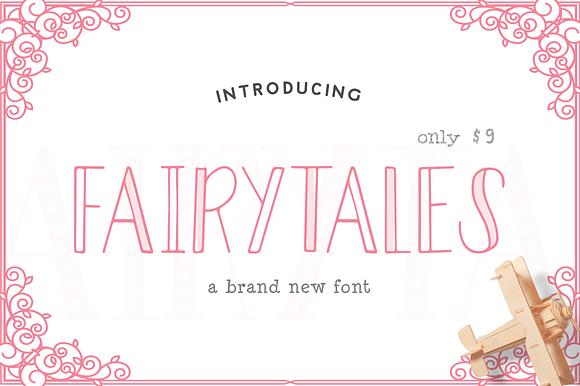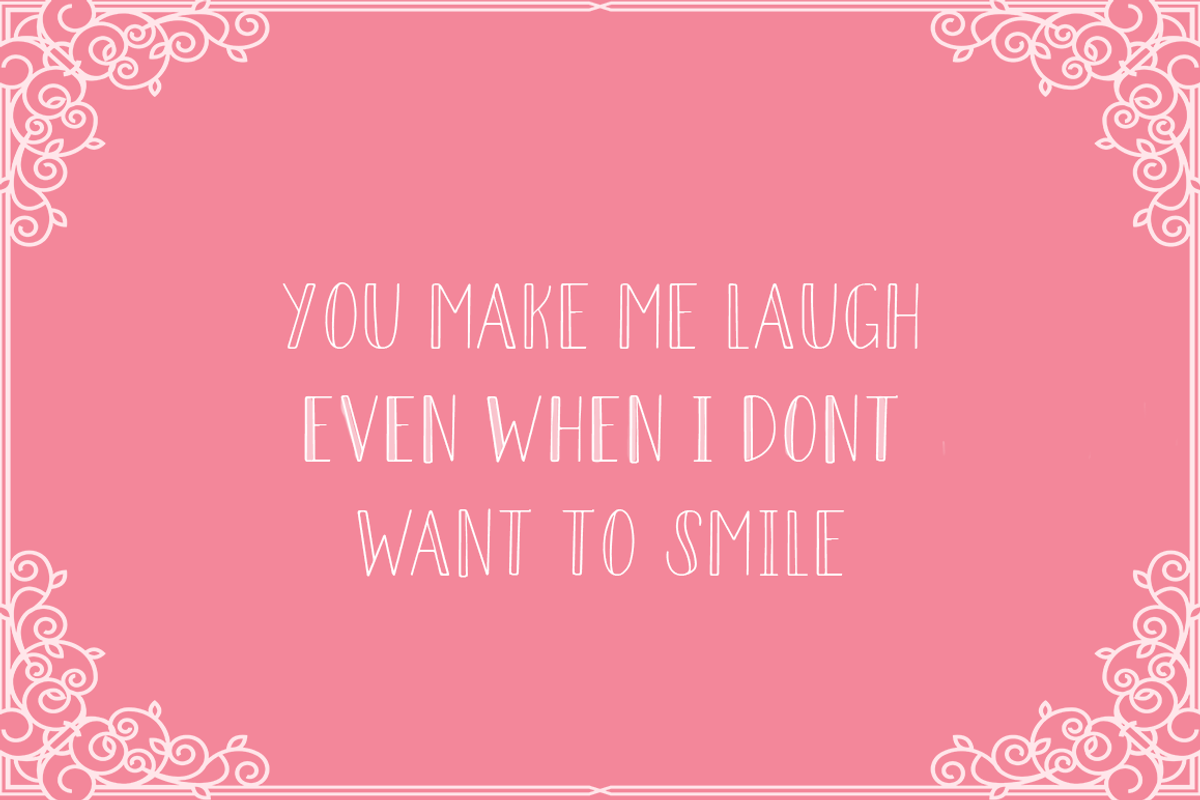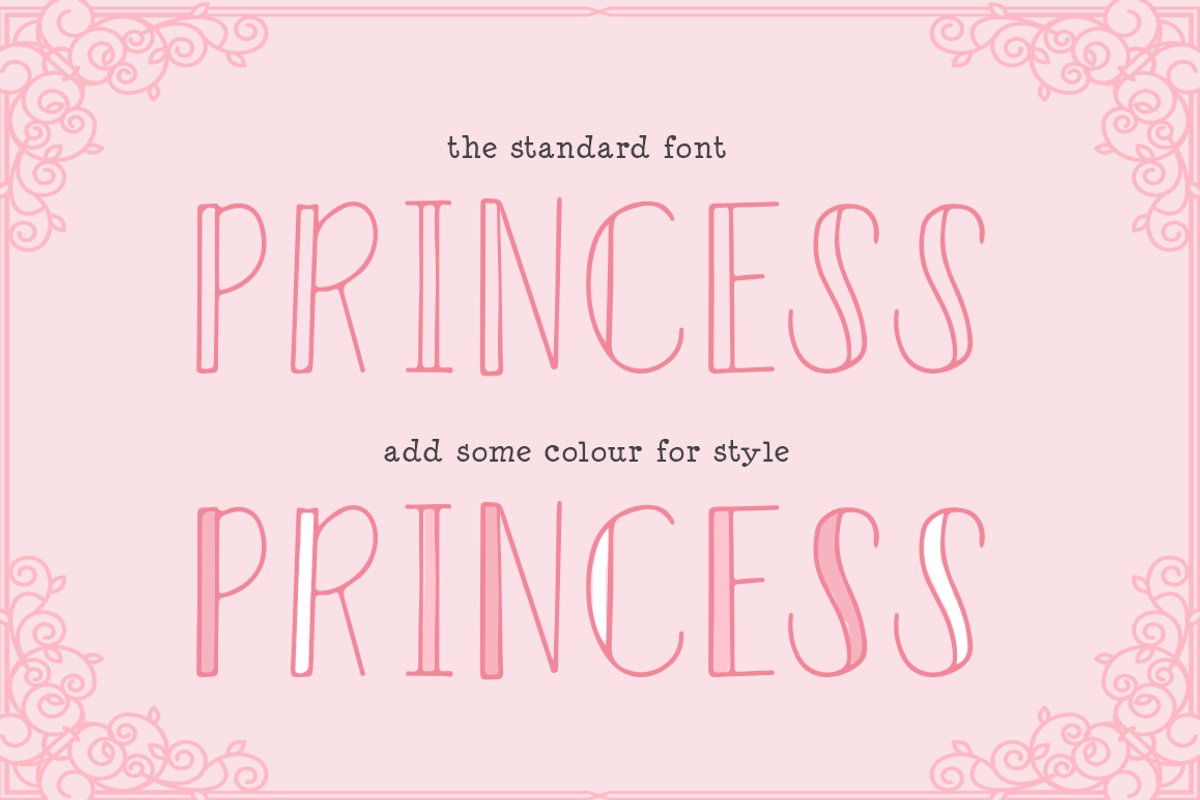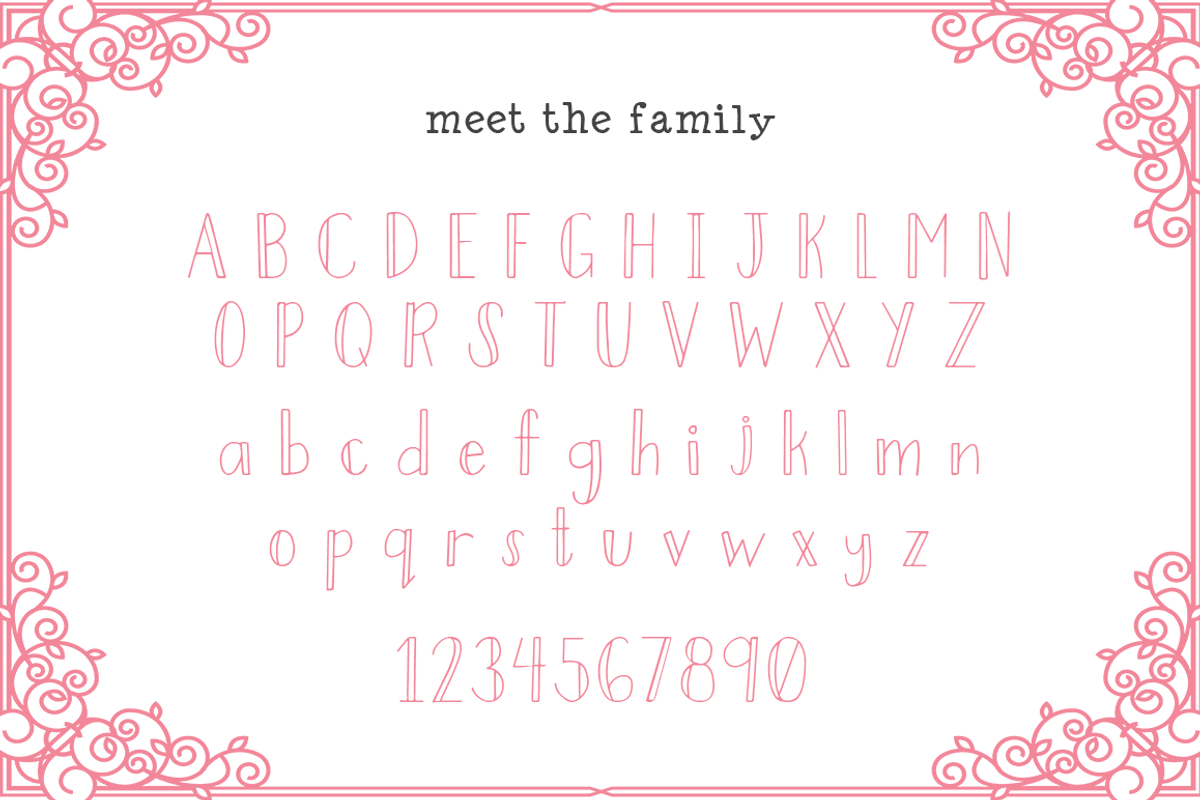
Fairytales Font (Only $9)
Introducing Fairytales a beautiful and brand new hollow style elegant font from Salt & Pepper Designs. This super cute font is available for only $9! 100% accessible to all, without the requirement for additional design software
Fairytales Font (Only $9) by Salt & Pepper Designs fits naturally into Branding, posters, packaging, typography.